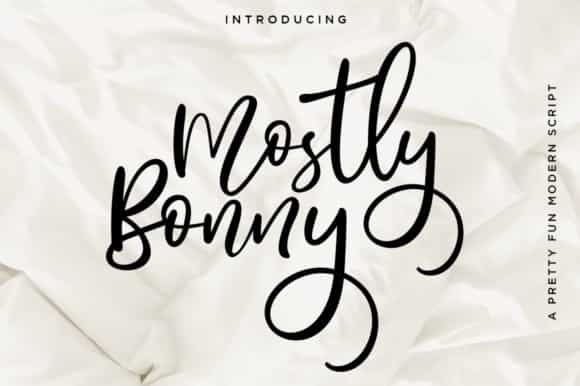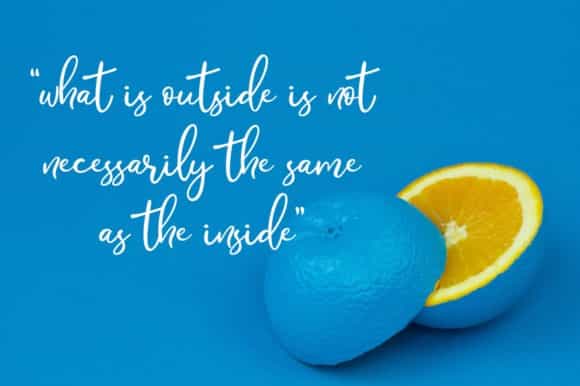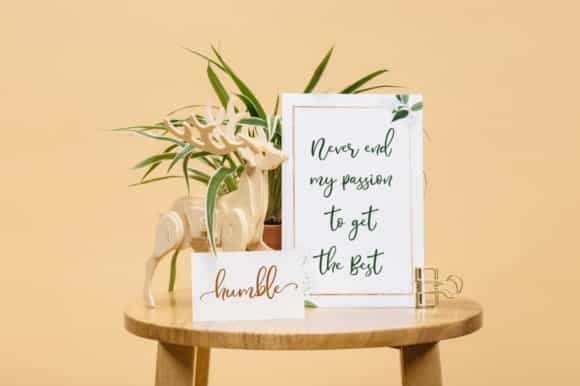
Announce my New Product “Bonny” The new fresh handwritten font. Perfect for greeting cards, branding materials, business cards, quotes and posters. These fonts are great for all the brands. Features : Uppercase & Lowercase, Numerals & Punctuations, Ligatures Multilingual characters.